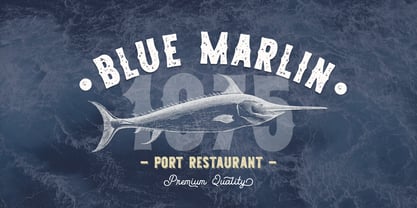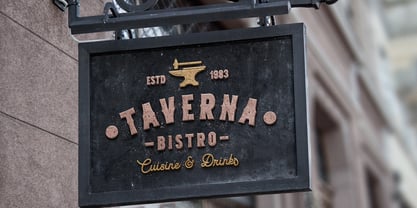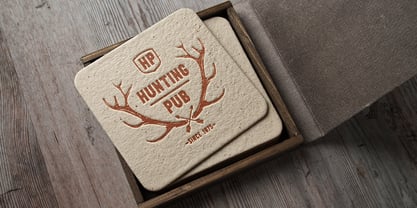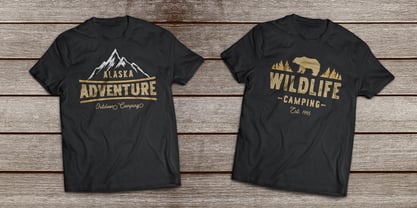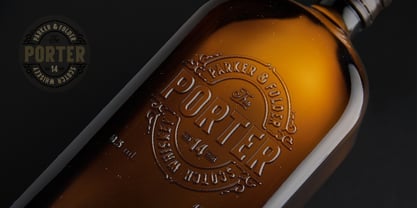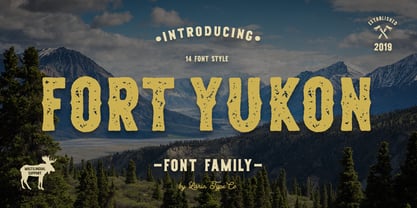
There is a particular satisfaction in finding a typeface that delivers visual harmony and precise spacing without compromise. Fort Yukon consistently provides it. The typeface brings a versatile sensibility to a broad range of creative disciplines, with distinctive character without sacrificing readability that holds up whether the work is print-first or screen-first.
In practice, Fort Yukon proves particularly effective for signage systems, poster creation, environmental graphics, packaging design, web design. Designers reaching for it find that the type decisions feel resolved rather than laboured — a useful quality when client timelines are tight.
The range of applications extends to annual reports, editorial layouts, logo design, advertising campaigns. That breadth is deliberate: the proportions and spacing were stress-tested across a wide range of mock briefs before the typeface was finalised.
At smaller sizes the design retains its character without becoming cluttered. This resilience across scales makes Fort Yukon equally suitable for a business card and a billboard — a useful property when assets must scale across a campaign.
Art directors commissioning type-led campaigns find Fort Yukon a reliable choice for projects that demand both personality and restraint. The design avoids the self-conscious quirkiness that dates quickly, settling instead for considered distinctiveness that holds up over time.